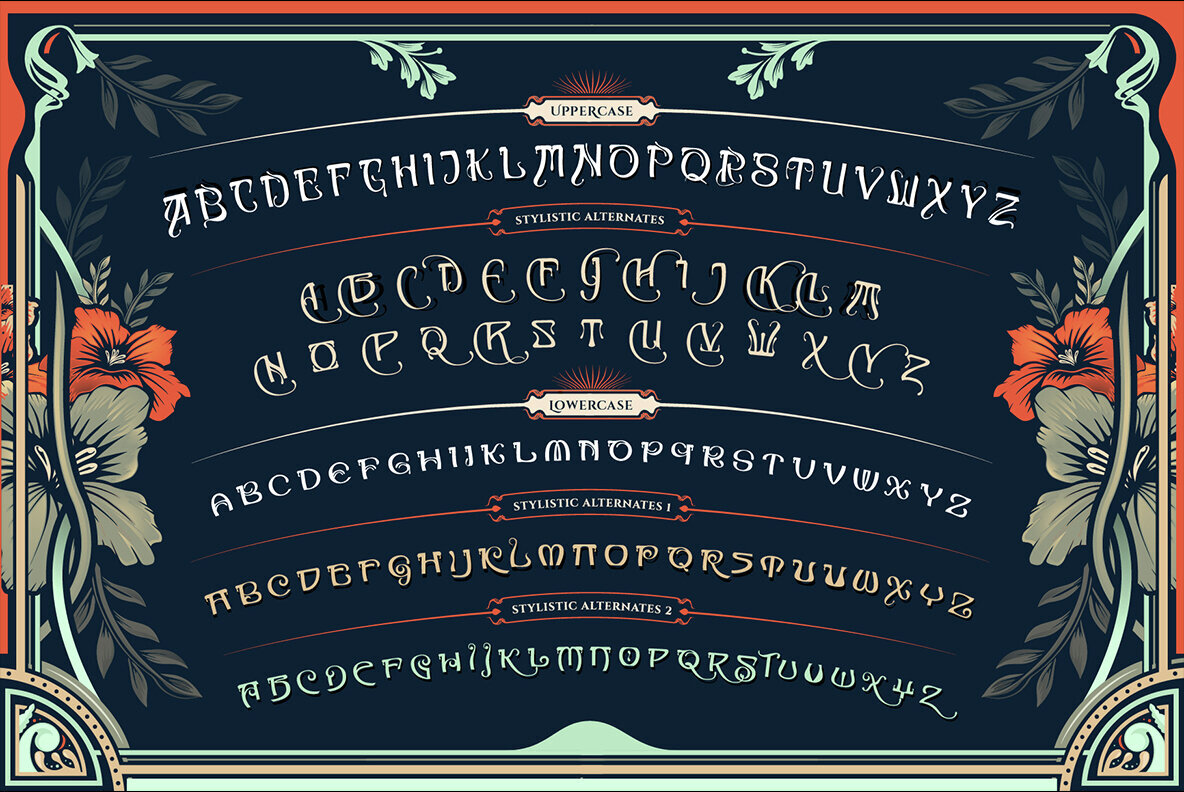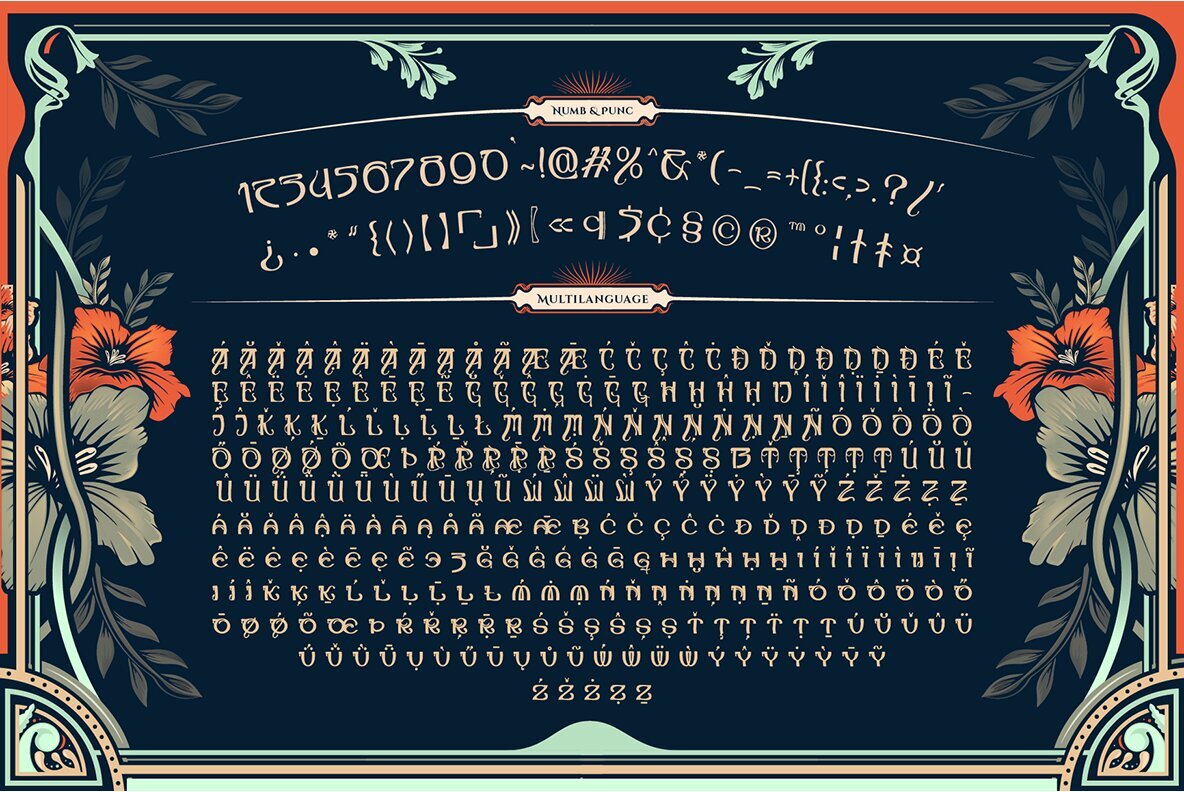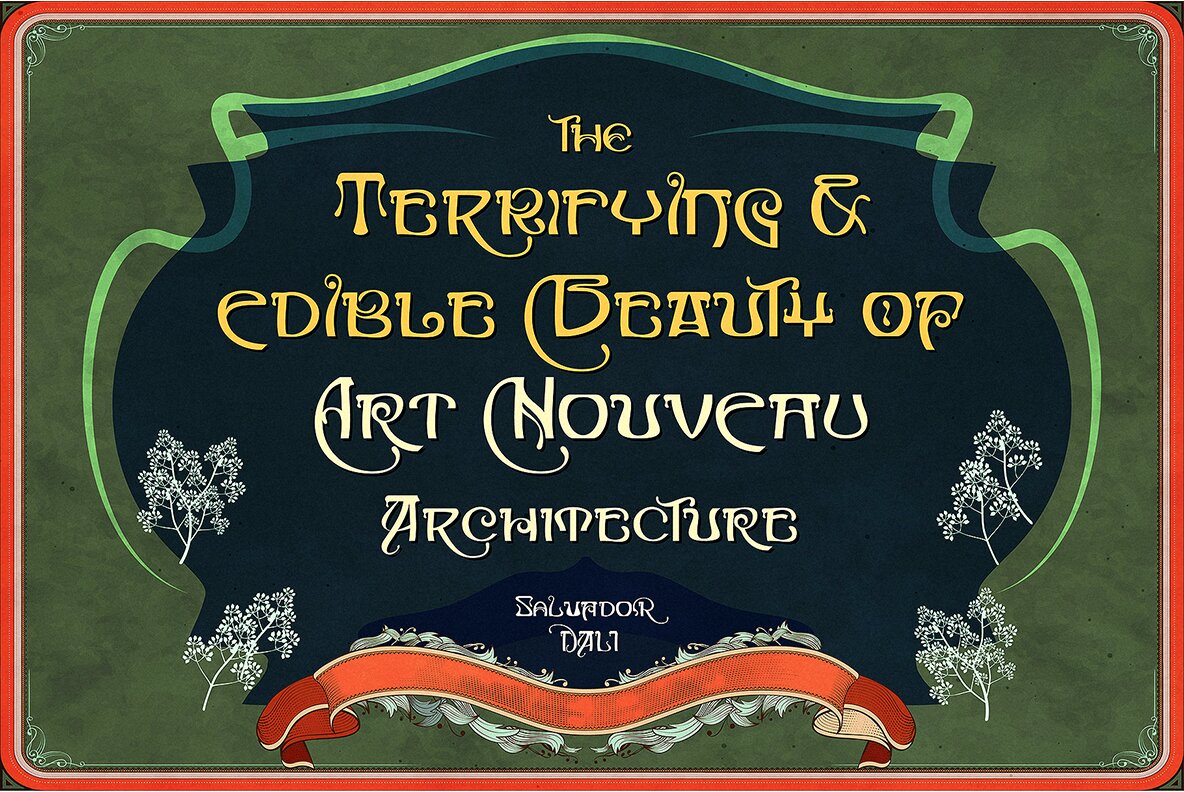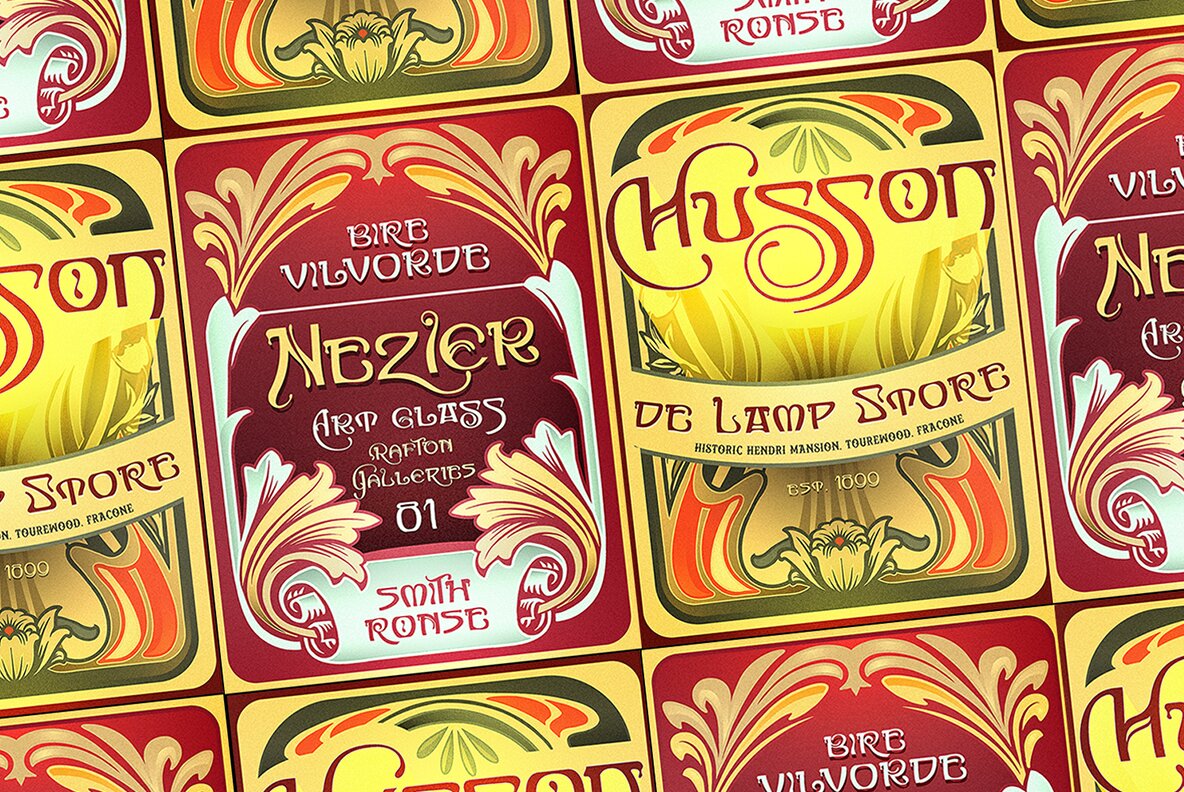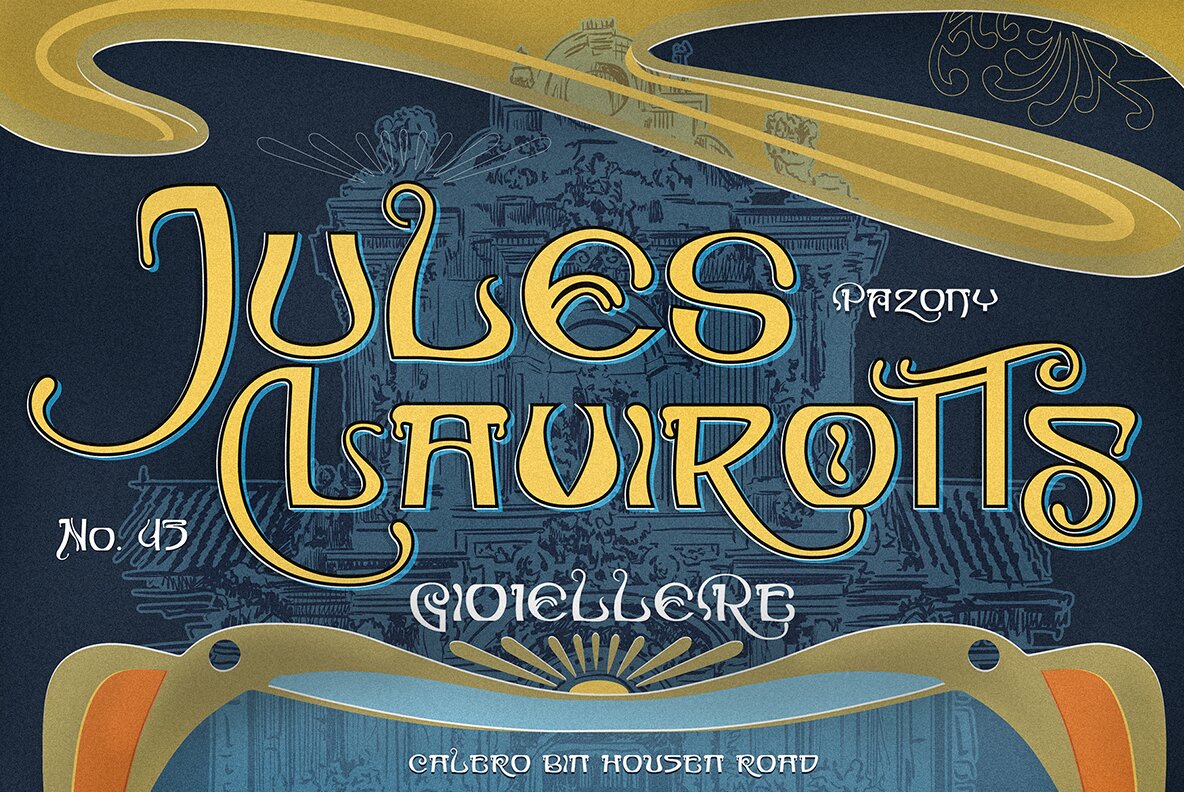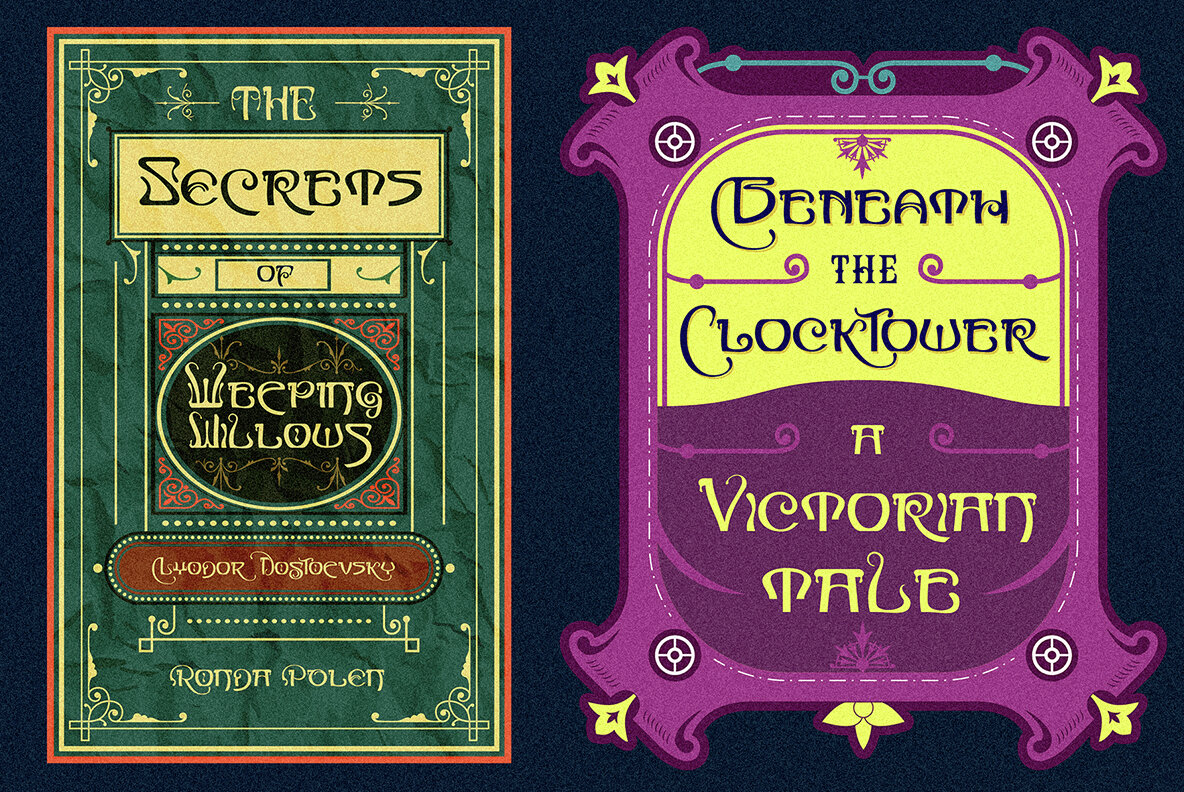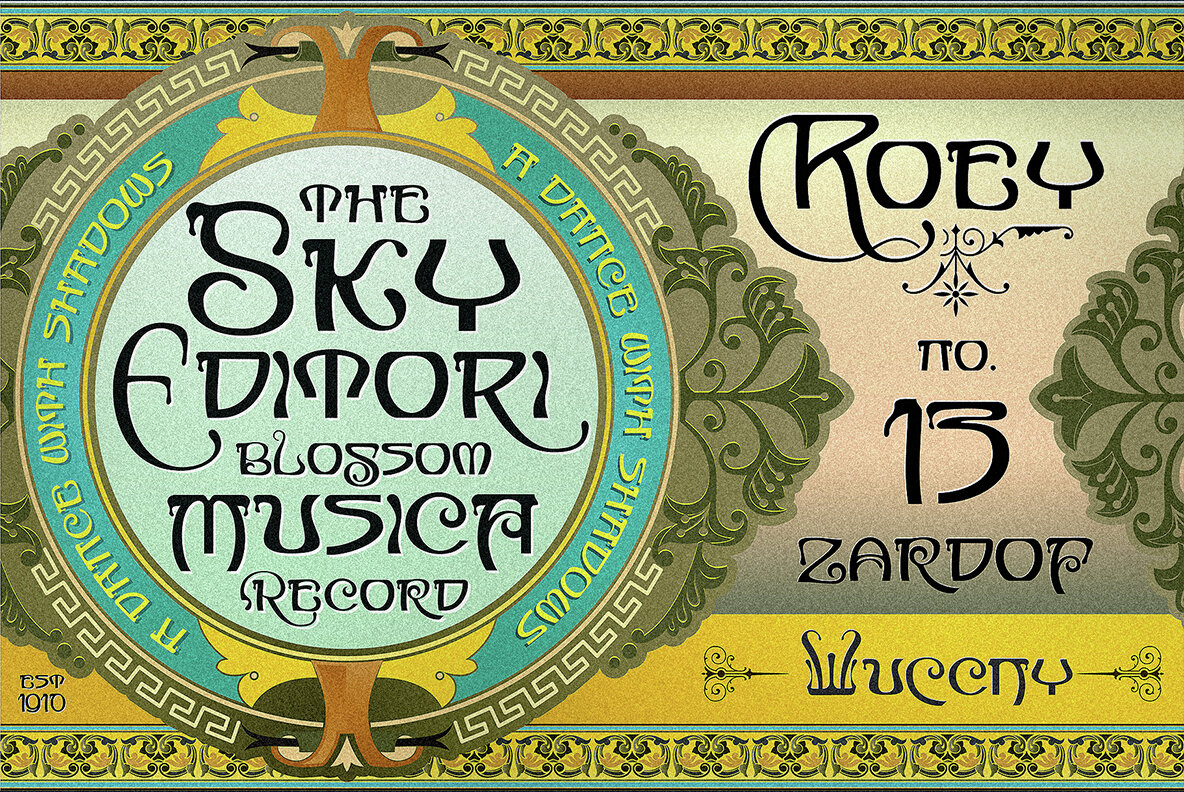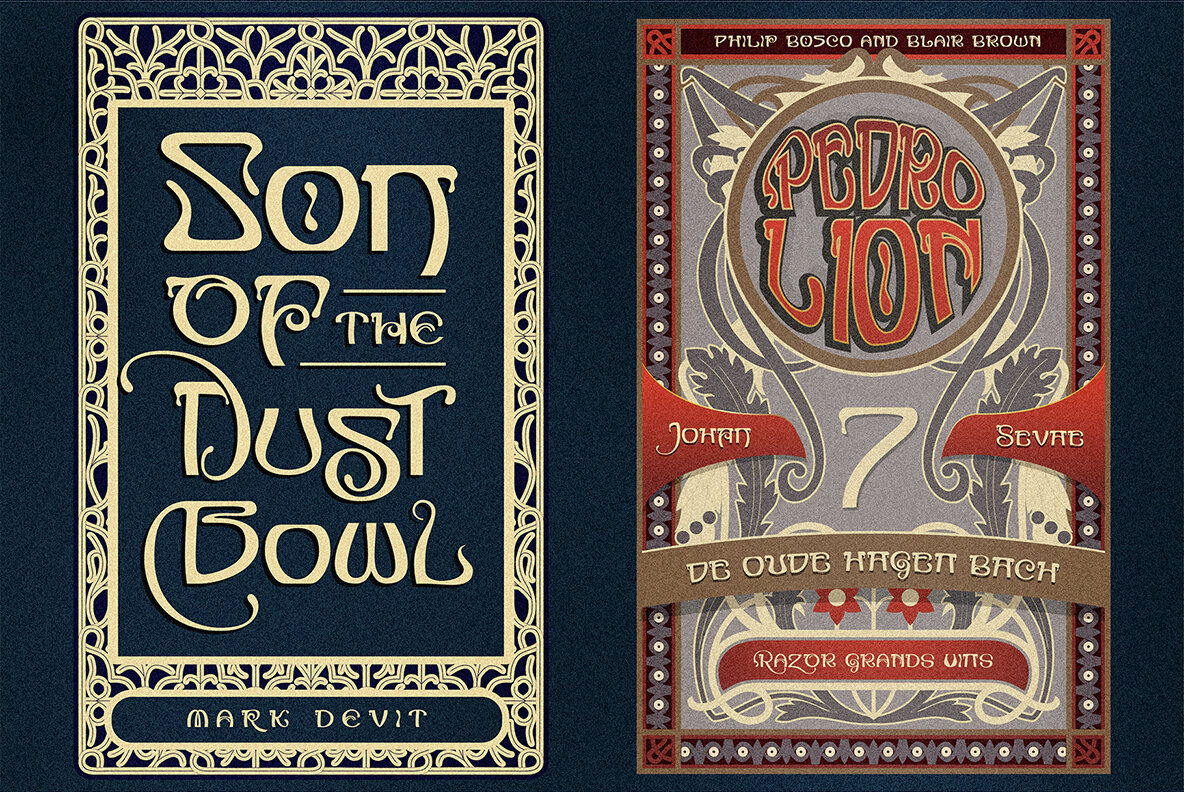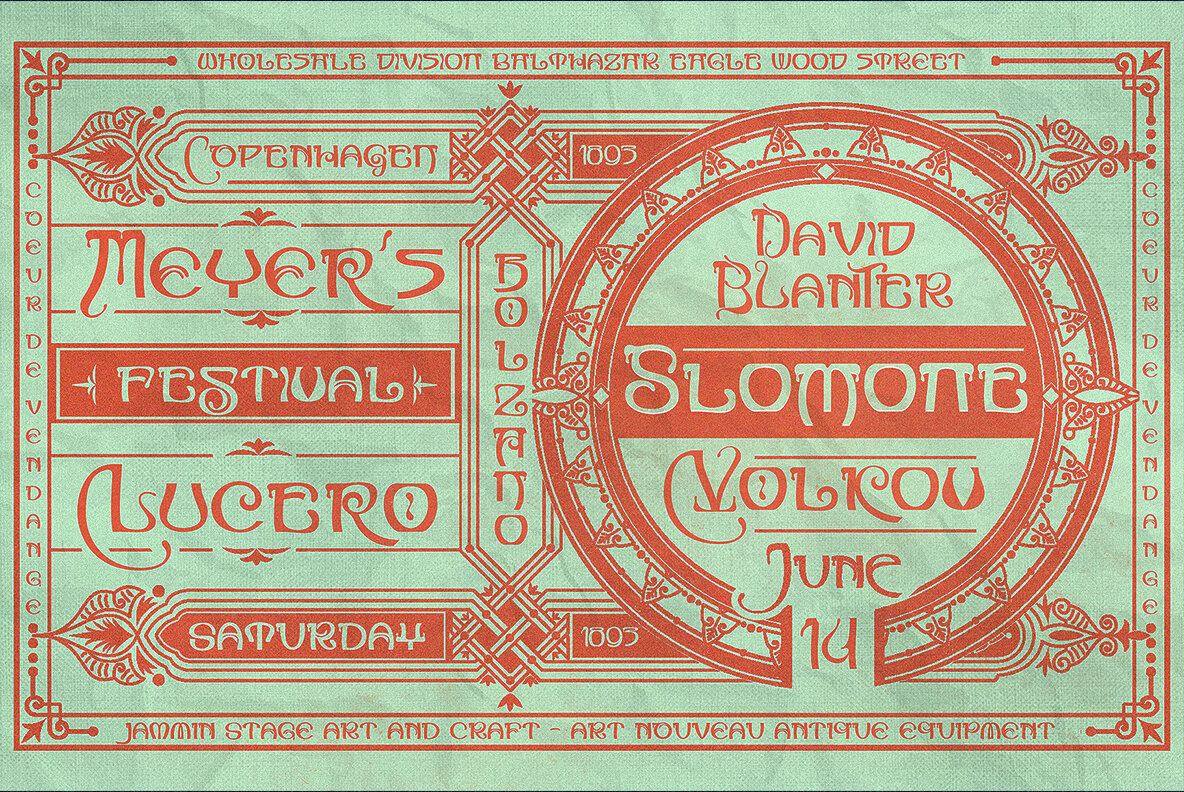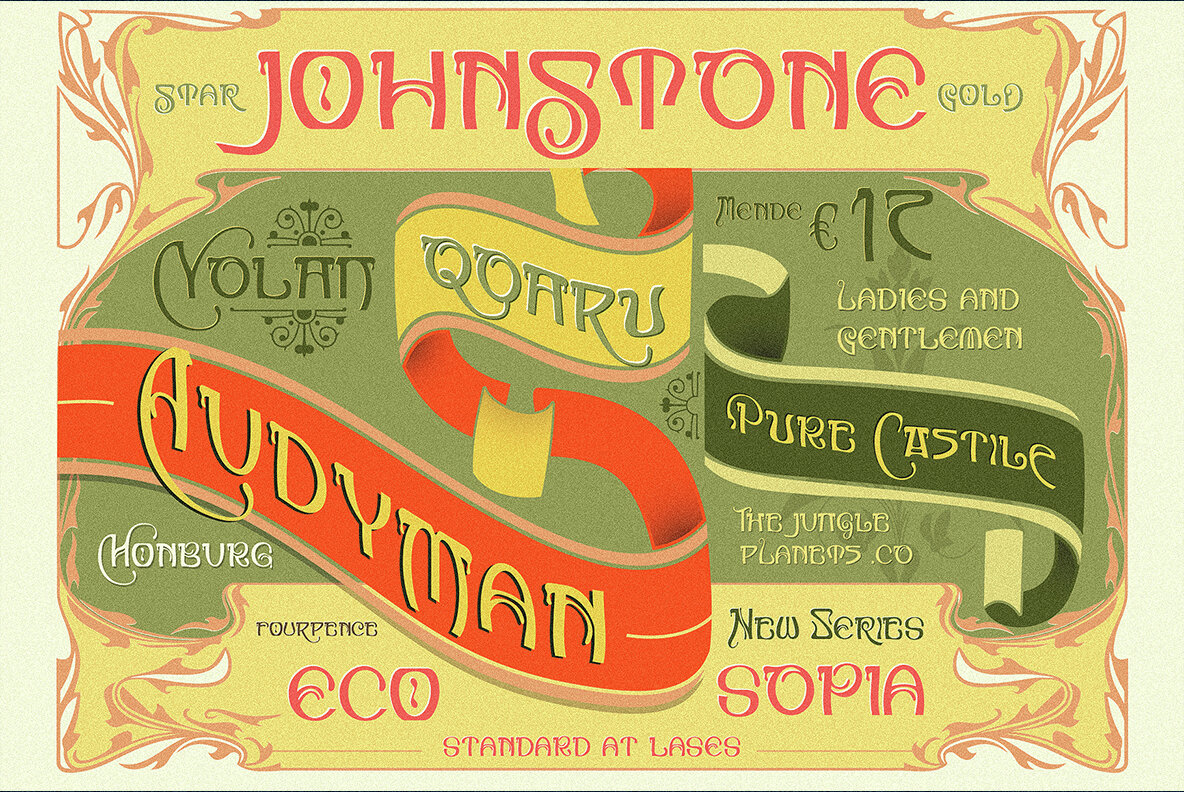
De Mucha Font
De Mucha Typeface, Art Nouveau is an artistic style that emerged in the late 19th and early 20th centuries combining classic typography with awesome features bring classic touch on this period. It's known for its flowing, organic forms inspired by nature, like curvy lines and flower motifs. It features over 500 Gylphs
Those all will make you work easily to create : Header, Book Cover, Posters, Logos, Print, Quotes, Headers, Clothing, Labels, Packaging etc.
Features:
• Layered font system
• Character Set A-Z
• Ligatures
• Stylistic Alternate (ss01)
• Stylistic Alternate (ss02)
• Numerals & Punctuations (OpenType Standard)
• Accents (Multilingual characters)